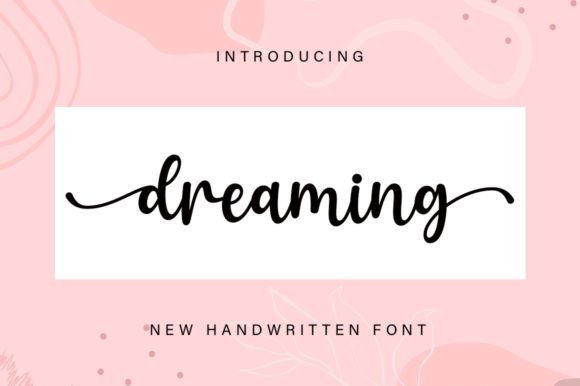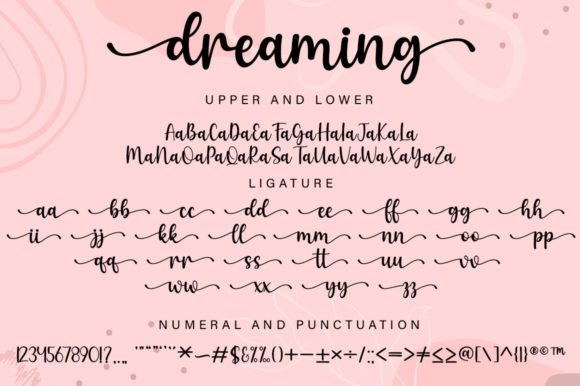
Introducing the Dreaming Font Download, a stunning handwritten typeface that combines elegance with a flowing, natural style. Whether you’re working on a wedding invitation, branding concept, or creative quote graphic, Dreaming adds a refined, artistic touch that transforms ordinary designs into extraordinary visuals.
A Timeless Script with Delicate Beauty
The Dreaming Font download was crafted for designers who love handwritten fonts with a soft and graceful rhythm. Every stroke feels like it was drawn with care, adding warmth and a personal feel to your work. With smooth curves and balanced spacing, Dreaming delivers high readability while keeping the natural charm of cursive handwriting.
Perfectly suited for feminine, romantic, and high-end projects, this font brings an air of sophistication that feels both modern and timeless. You’ll love how easily it adapts to a variety of design needs without losing its unique flair.
Versatility for Every Creative Project
Dreaming Font download is not just another pretty script—it’s a powerful design tool. Whether you’re working on digital or print materials, Dreaming gives your projects a soft, elegant voice. It’s ideal for:
Wedding invitations and bridal stationery
Personal branding and logo design
Inspirational quote graphics
Fashion and beauty branding
Greeting cards and love letters
Instagram and Pinterest visuals
Elegant packaging and product labels
Dreaming supports multilingual characters and standard punctuation, giving you the flexibility to use it in many languages and global campaigns. Its elegant style stays consistent across various platforms and devices, ensuring professional results every time.
Why Choose the Dreaming Font?
If you’re looking for a handwritten font that blends delicacy, elegance, and creative freedom, then the Dreaming Font download is for you. Its beautifully flowing strokes and refined form make it a favorite among designers who value both beauty and functionality. From wedding creatives to luxury branding, Dreaming brings a graceful sophistication that’s hard to match.